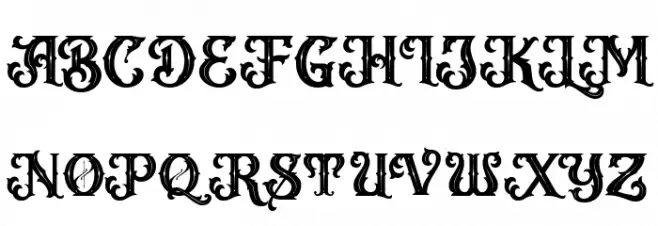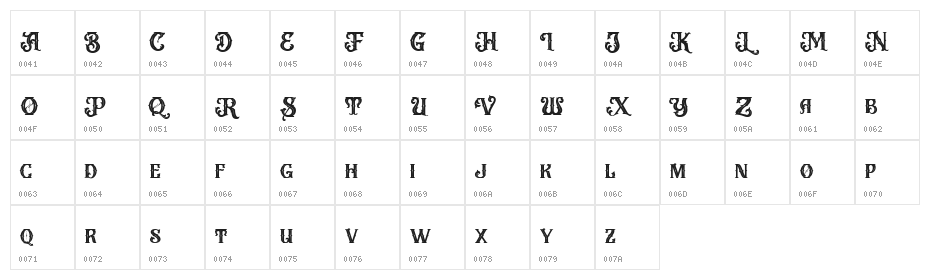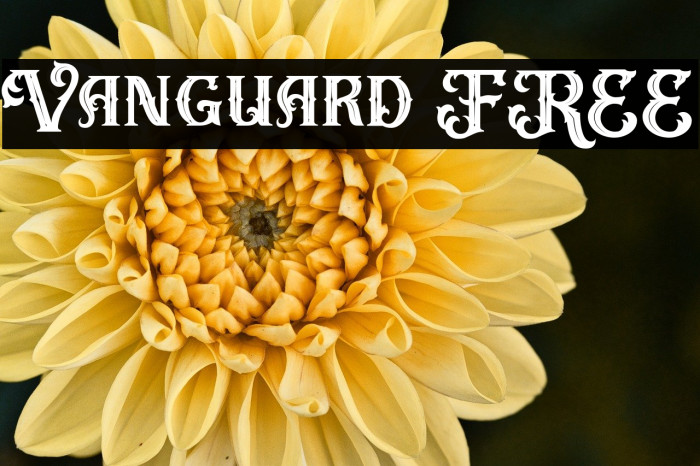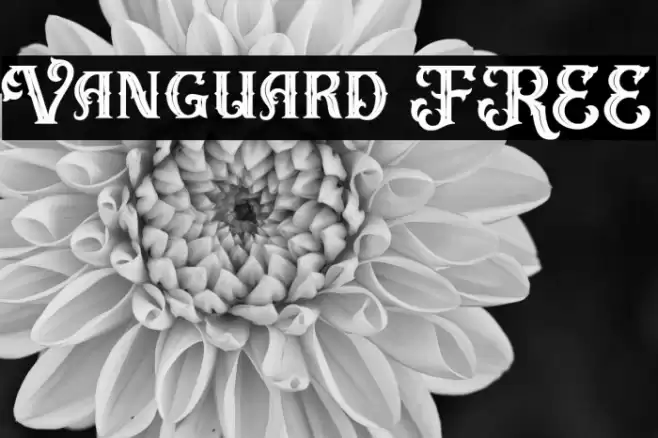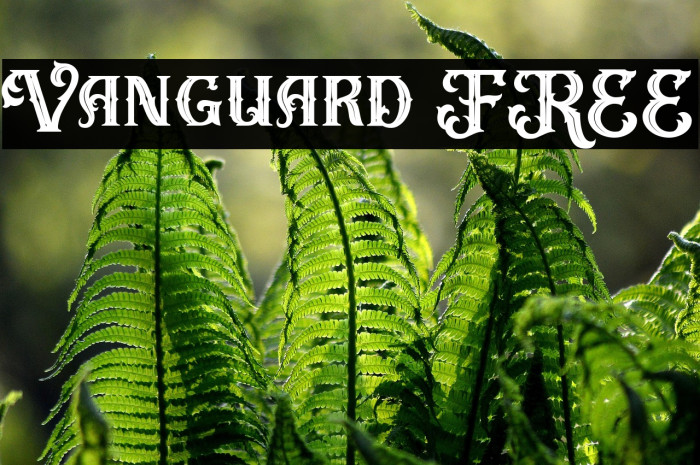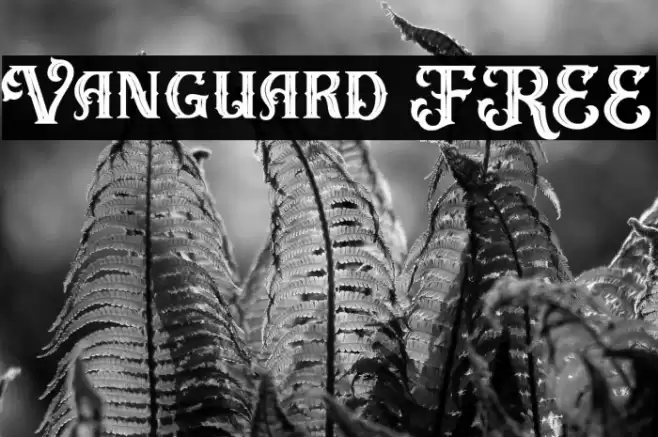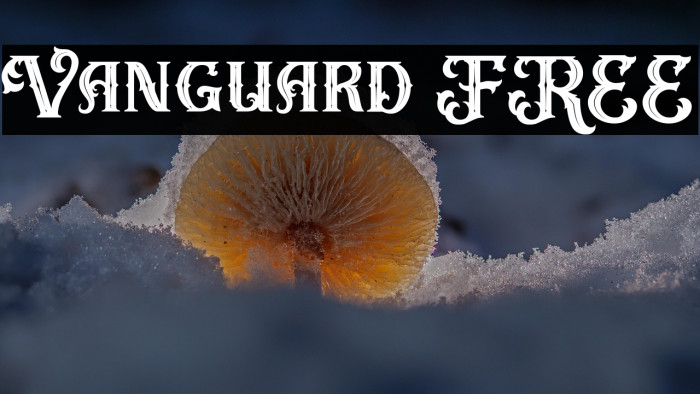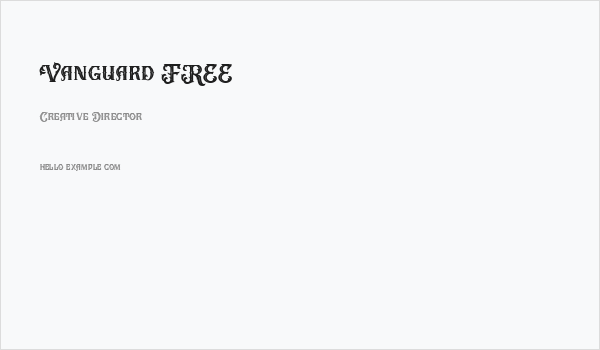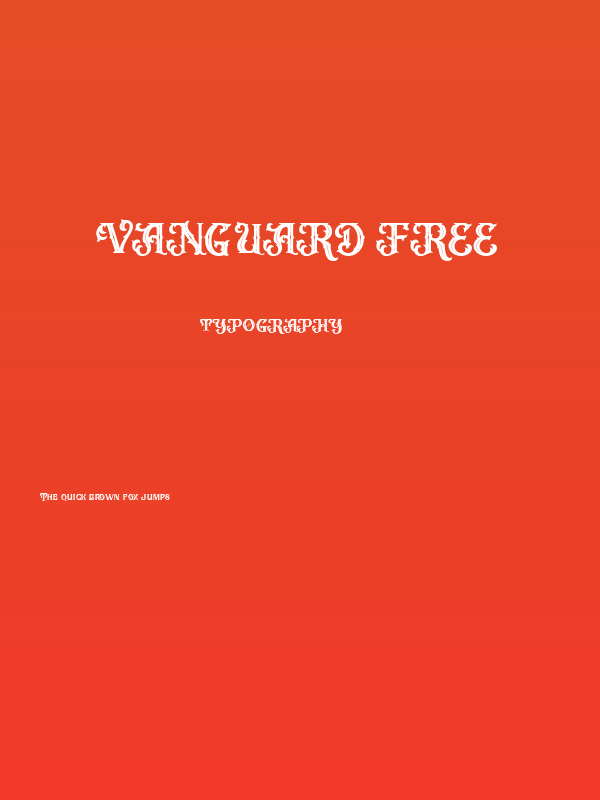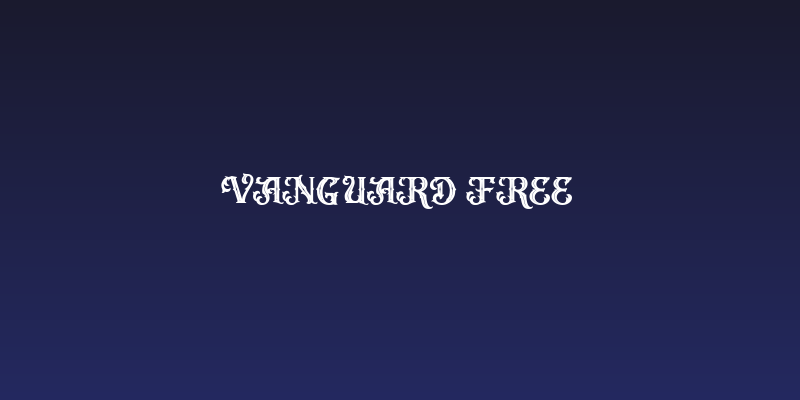
Vanguard FREE Font
Vanguard FREE Description
This font features an ornate and decorative style, characterized by intricate details and flourishes that give it a vintage and elegant appearance. The uppercase letters are bold and embellished with unique curls and swirls, making them stand out with a sense of grandeur. The lowercase letters maintain a consistent style, complementing the uppercase with their own decorative elements. The numbers and special characters are similarly styled, ensuring a cohesive look across all glyphs. This font is ideal for projects that require a touch of sophistication and historical charm, such as invitations, certificates, or branding for luxury products.
| Overall Style | Vintage, Decorative |
| Use Case | Headlines, Logos, Decorative text |
| Proposed Projects | Ideal for invitations, certificates, luxury branding, and decorative headlines. |